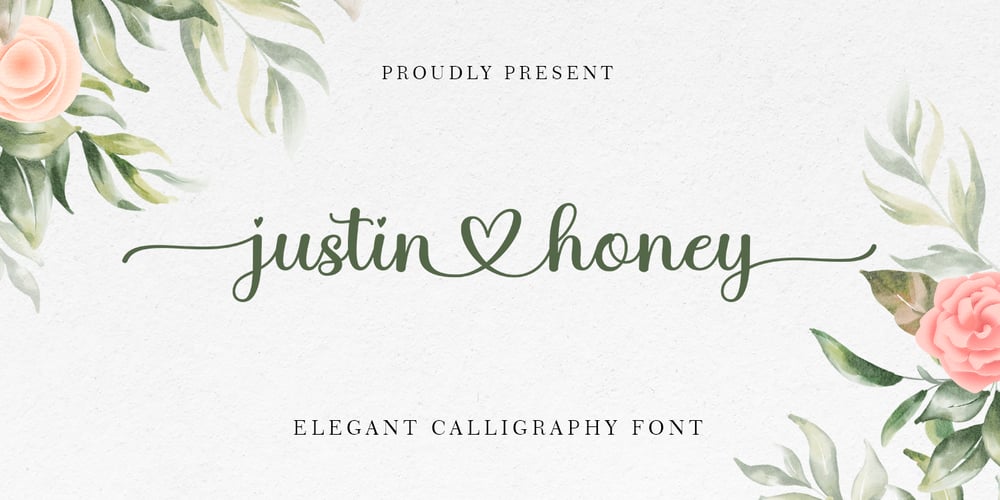
Justin Honey Font Family was designed by Romi Rahmadi and published by Romie Creative. Justin Honey contains 1 styles and family package options. Justin Honey is a beautiful modern calligraphy font with a special heart character. It will add a romantic touch to any craft project!Fall in love with its authentic feel and use it to create gorgeous wedding invitations, beautiful stationery art, eye-catching social media posts, and cute greeting cards